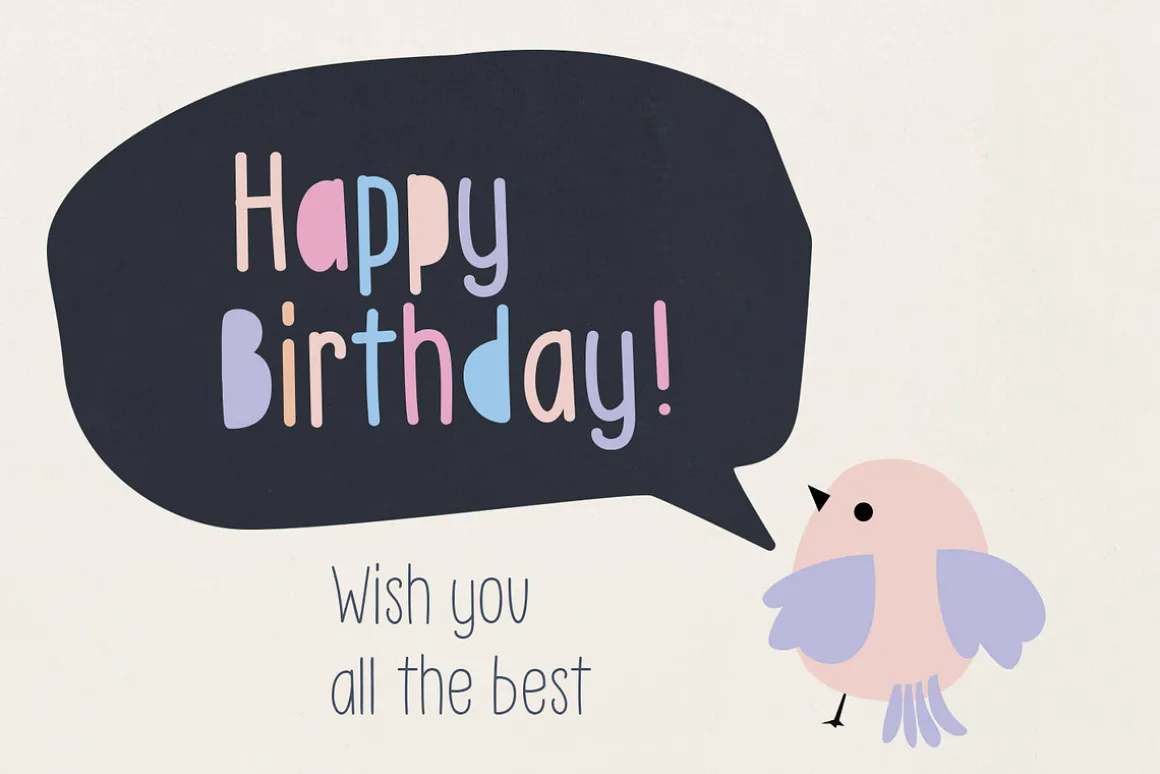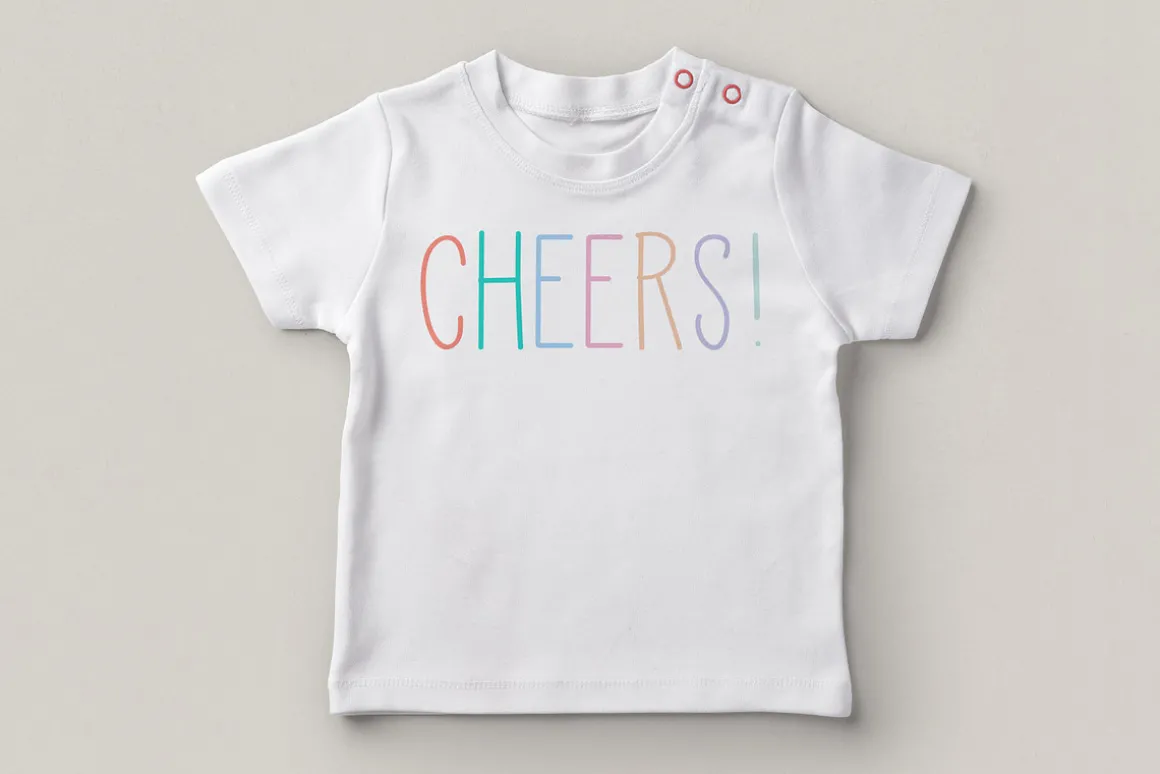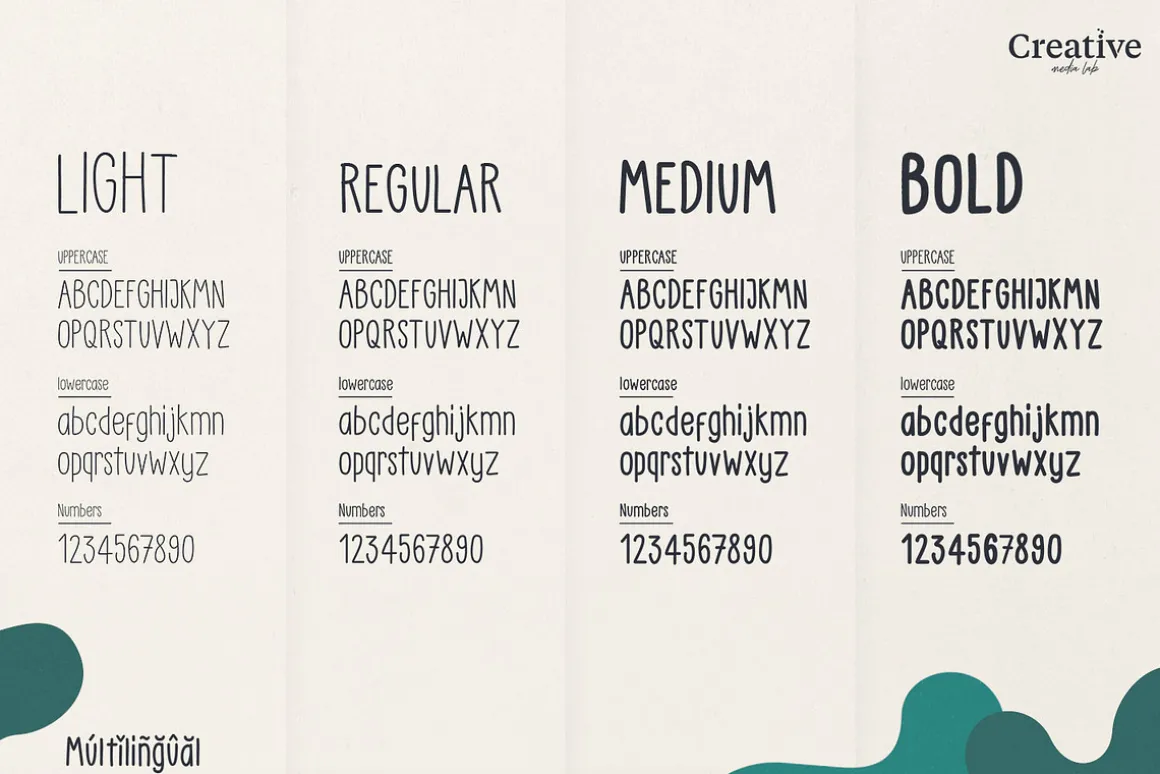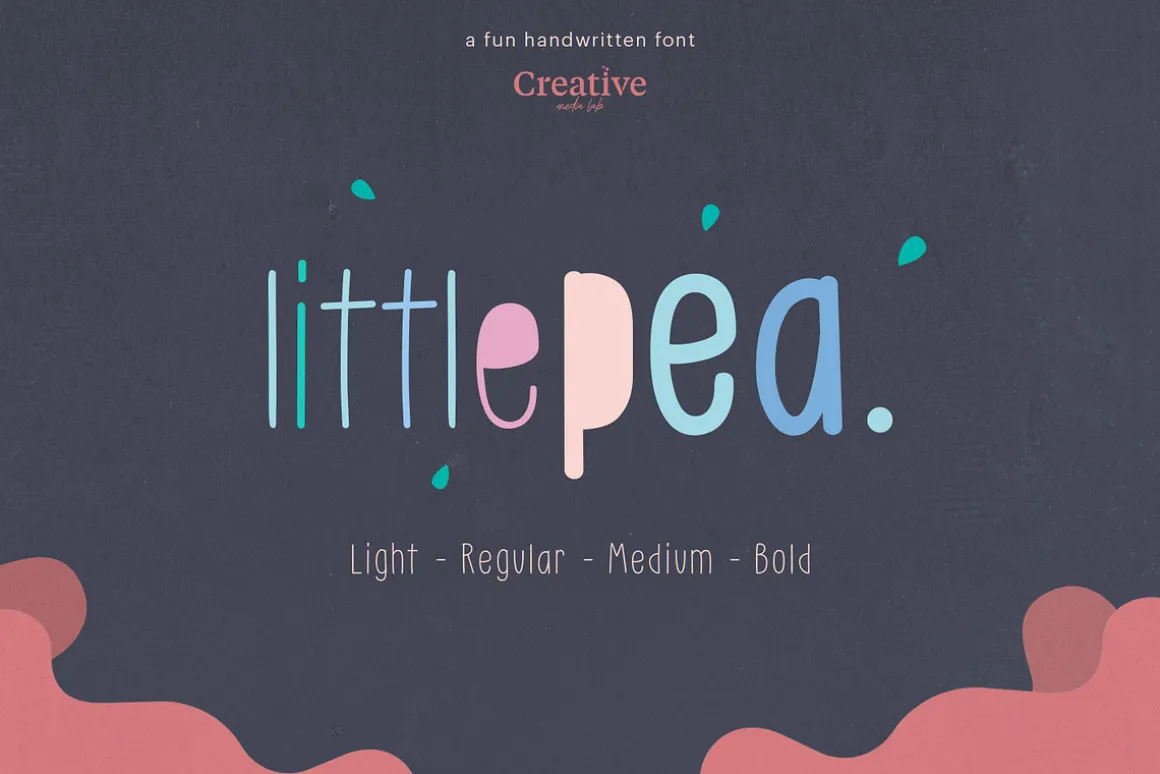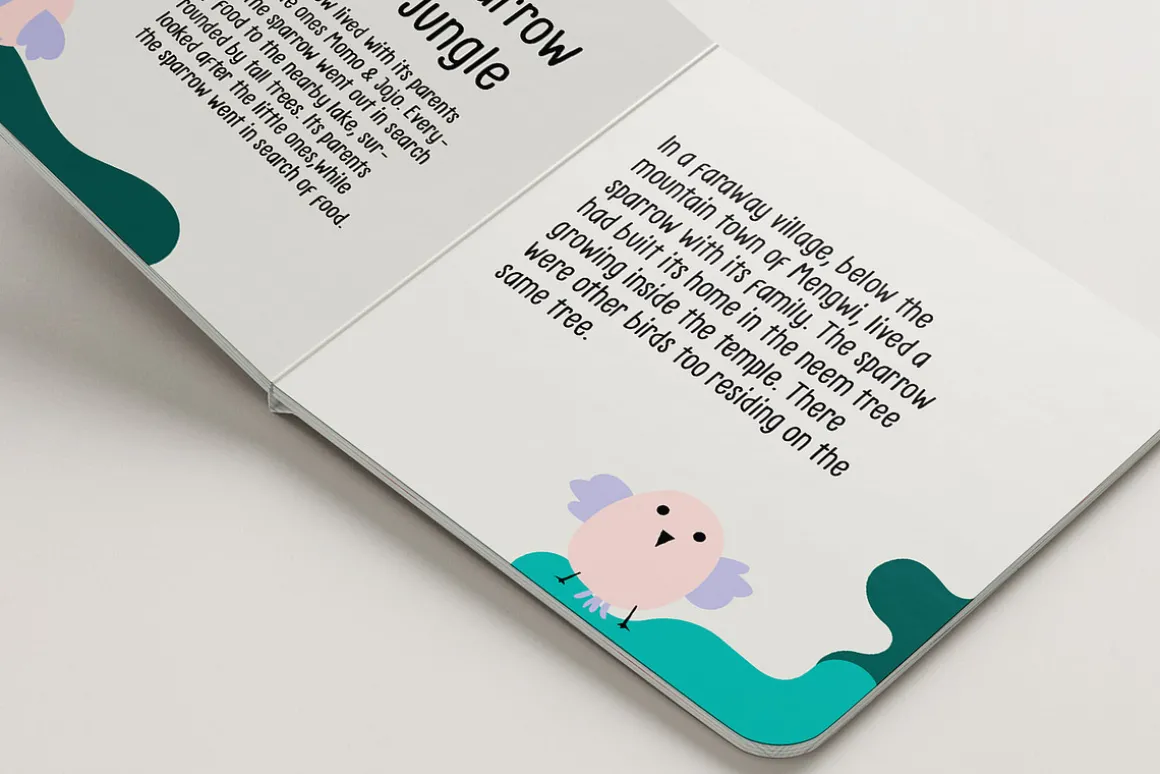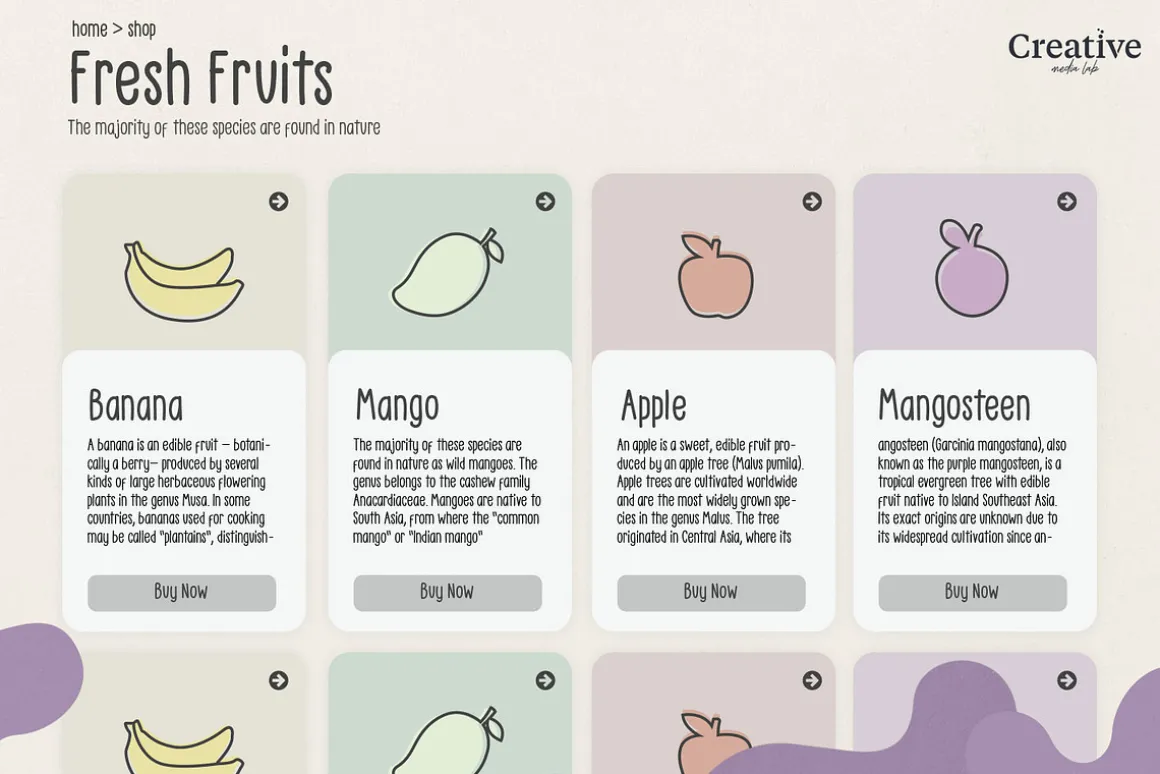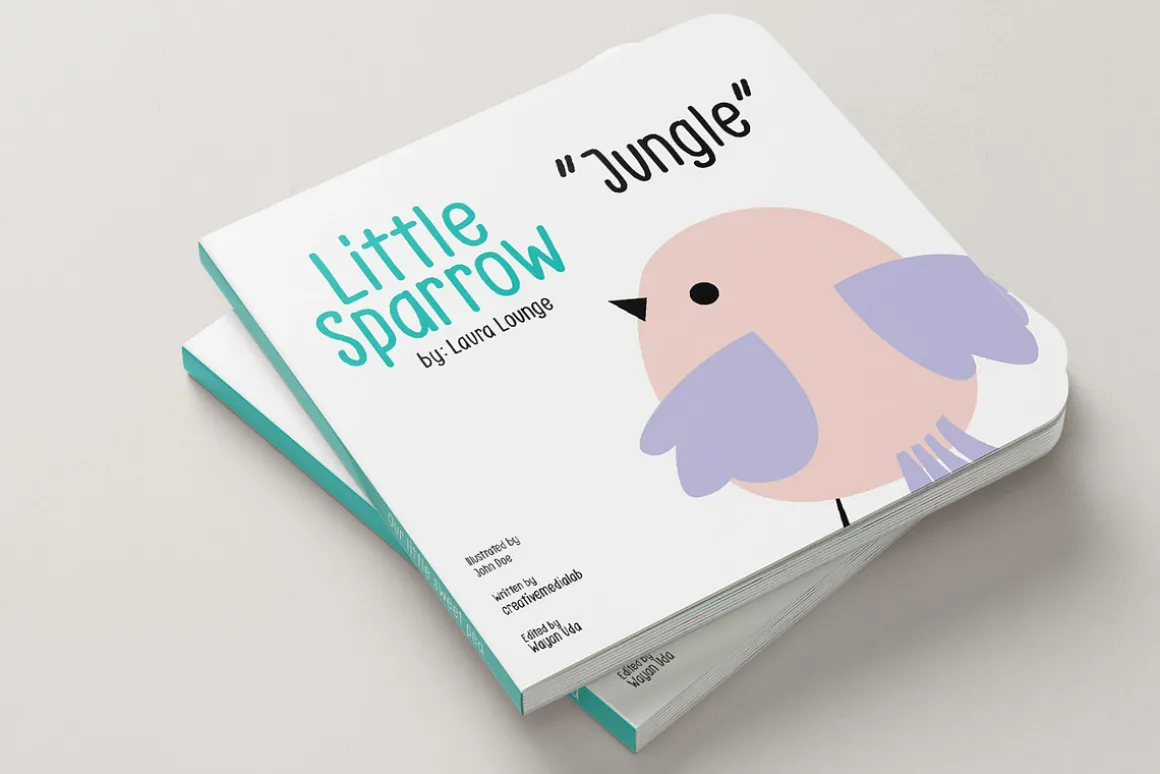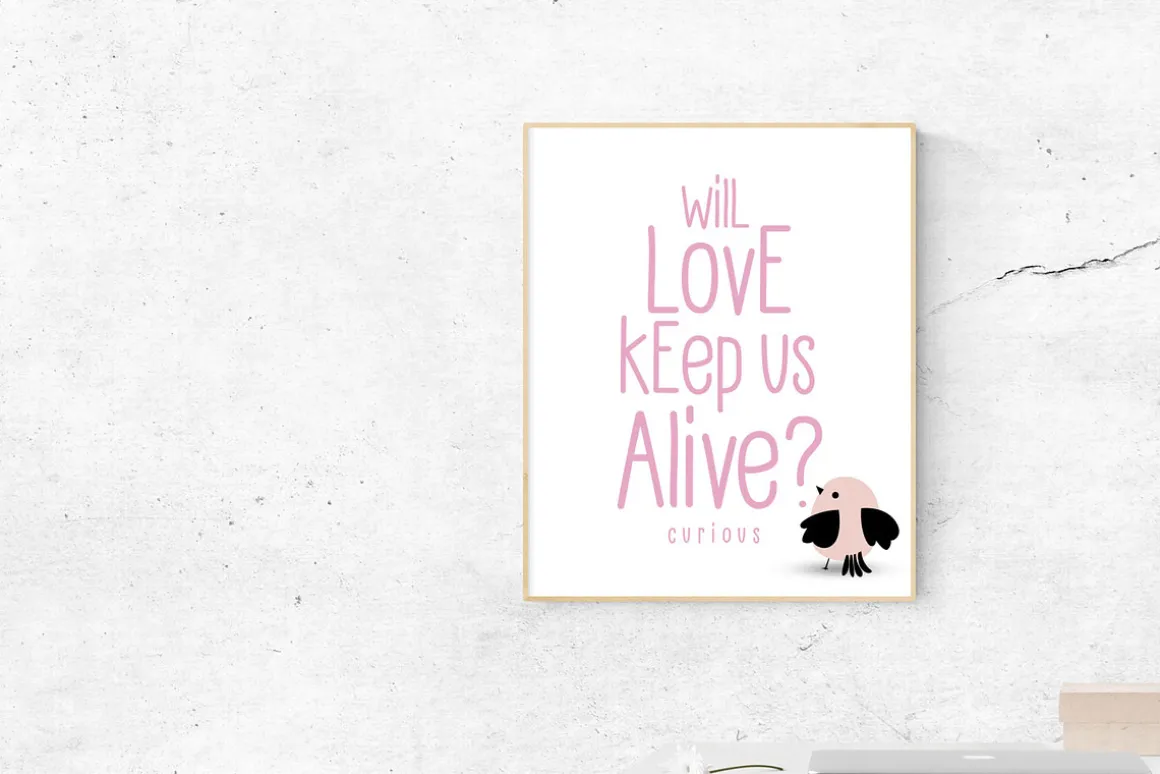
Little Pea – Handwritten Font
is a cute little handwritten font that would be perfect for Comic, books, greeting cards, toys, posters, baby clothing, picture books or anything that requires a fun and happiness look!
comes with four weights:
- light
- regular
- medium
- bold
this font will make your design looks great and fun!